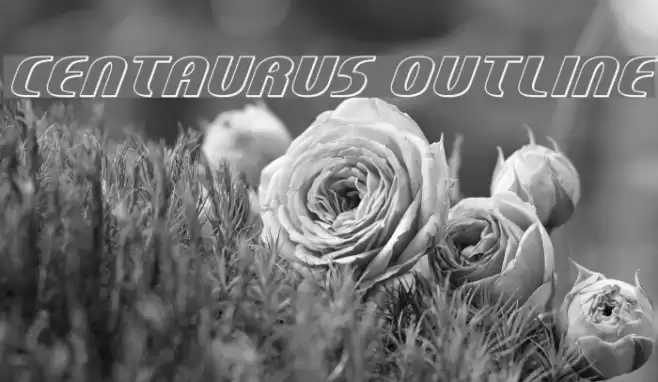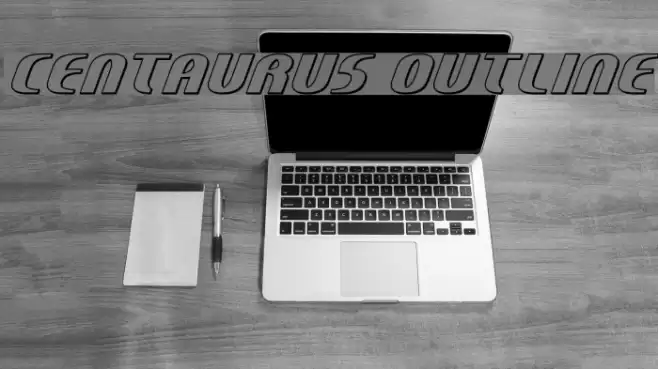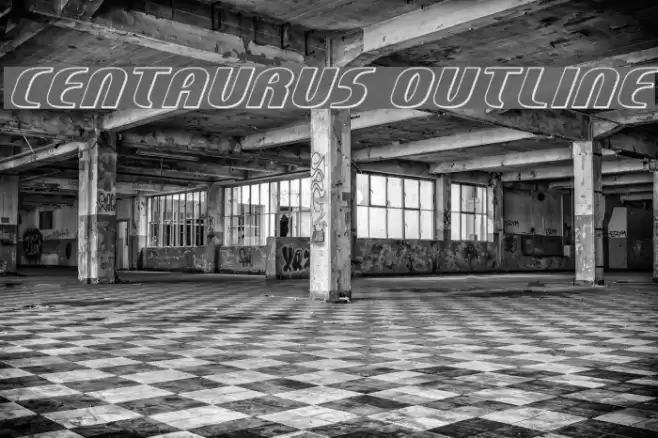
Centaurus Outline Font
Centaurus Outline Description
This font features a bold, outlined style with a modern and dynamic appearance. The characters are uppercase and lowercase with a consistent outline that gives them a three-dimensional effect. The strokes are uniform, creating a balanced and cohesive look. The font's design is clean and legible, making it suitable for various creative applications. Its unique outline style adds a touch of sophistication and flair, making it stand out in any design project.
A bold, outlined font with a modern and dynamic style from Uncategorized fonts.
- Proposed Projects: Ideal for headlines, posters, branding, and any design that requires a bold, eye-catching font.